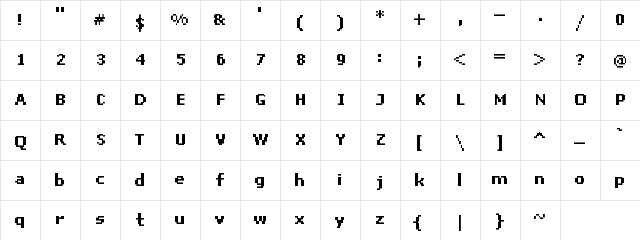
variable Regular
Design Context for variable Typeface
variable offers clean, dependable letterforms without strong stylistic allegiance, making it a practical choice for designers who need flexibility.
Pro Tip: Use variable in both headline and body roles to test its range before committing to a single application.